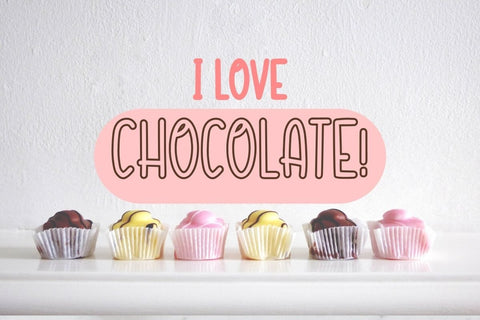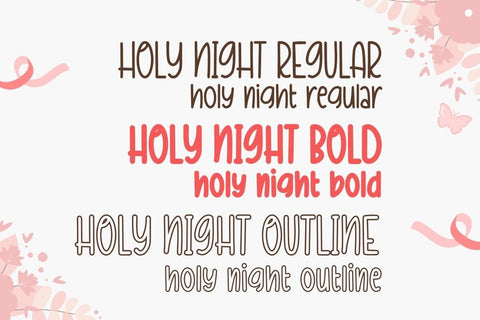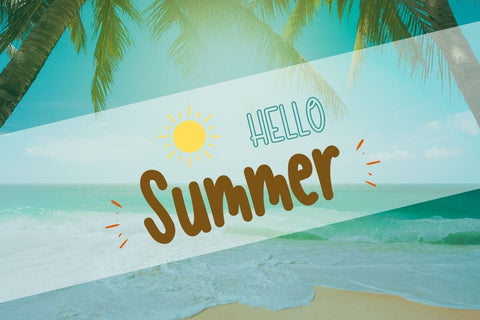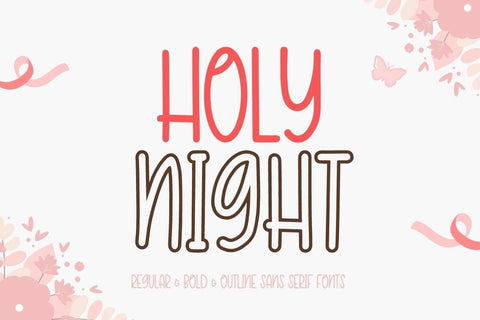
Holy Night Font Trio
Holy Night is a fun handwritten font trio (regular, bold, and outline) that will help you enjoy and have fun with your designs. Perfect for creating a wide variety of new designs to match products such as banners, content, mugs, cards, shirts, stationery, social media posts, and more!